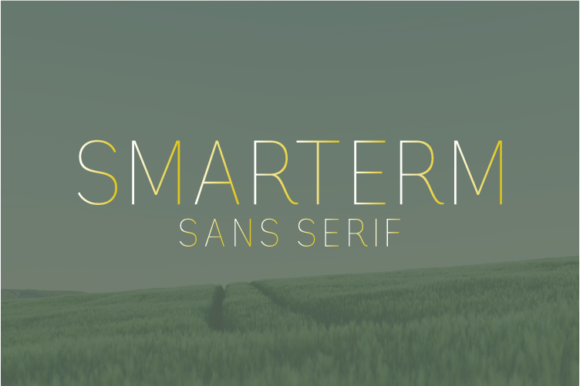
Introduce the Smarterm font, a sans serif creation by Nan Design, possessing an alluring simplicity and a casual charm that exudes a refreshing cleanliness. This font family carries an innate ability to complement both formal and non-formal designs, earning its place as a versatile choice for various creative endeavors.
Step into a realm of captivating designs with Smarterm, a font that embodies clarity and elegance. Its meticulously crafted letterforms dance upon the page, creating a visual symphony that captivates and enchants. Whether crafting captivating logos, alluring posters, or sophisticated presentations, Smarterm stands ready to elevate your creations to new heights of visual appeal.
Unleash your creativity and immerse yourself in a world of boundless possibilities with Smarterm. Its crisp lines and graceful curves ignite a spark of inspiration, inviting you to weave tales that resonate and designs that leave a lasting impression. Experience the joy of crafting designs that radiate sophistication and timeless beauty, leaving your audience breathless.
Feel the power of expression as Smarterm's versatile nature adapts seamlessly to diverse design landscapes. From heartfelt personal messages to compelling marketing campaigns, Smarterm possesses the inherent flexibility to convey your message with clarity and impact. Its clean aesthetic ensures effortless readability, ensuring that your words hit home with unwavering precision.
With Smarterm as your design companion, embark on a creative journey where clarity meets creativity. Its innate simplicity allows your designs to shine, free from unnecessary embellishments. Let your imagination soar and allow Smarterm to be the canvas upon which your masterpieces take form.
Explore the infinite possibilities of Smarterm, a font that transcends boundaries and unlocks a new dimension of visual storytelling. Its versatility empowers you to create designs that captivate, designs that ignite emotions, and designs that endure the test of time. Embrace Smarterm and unlock the true potential of your creativity.